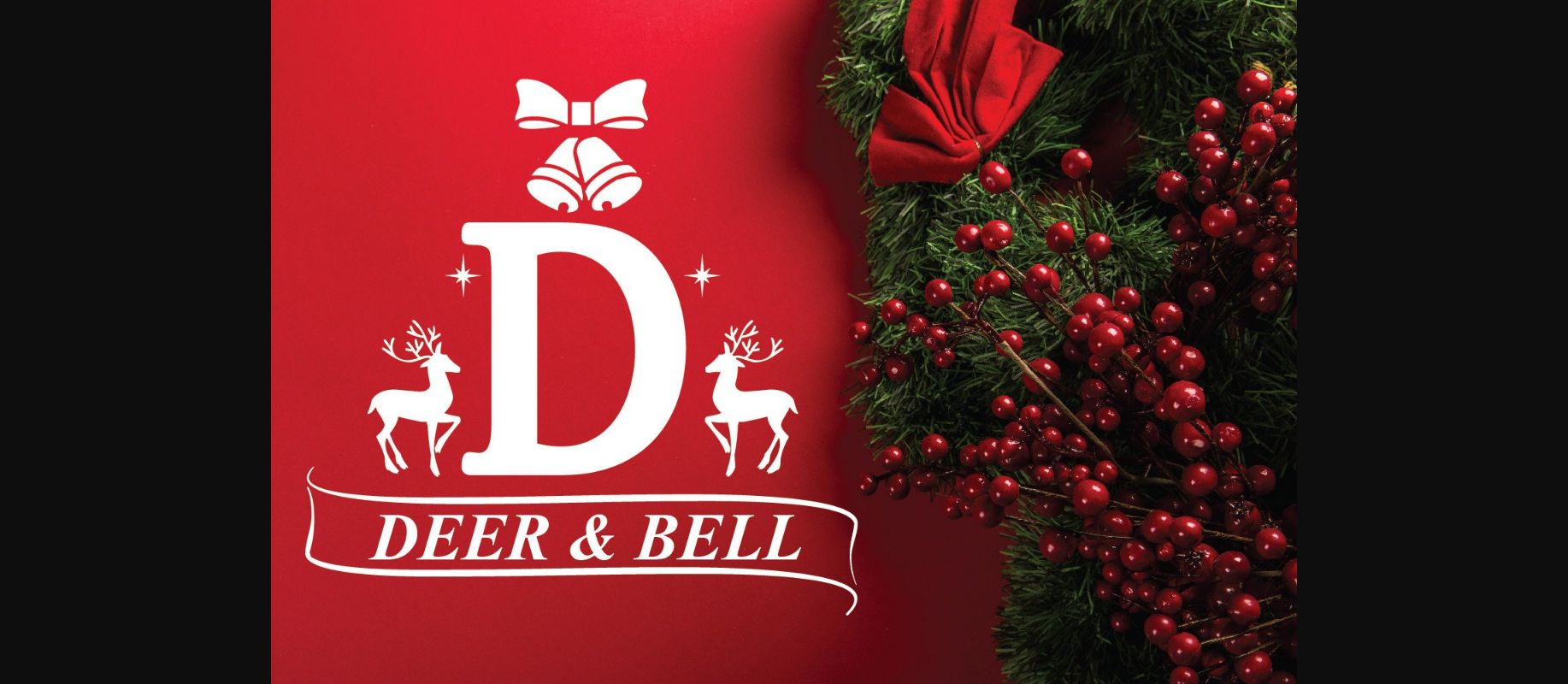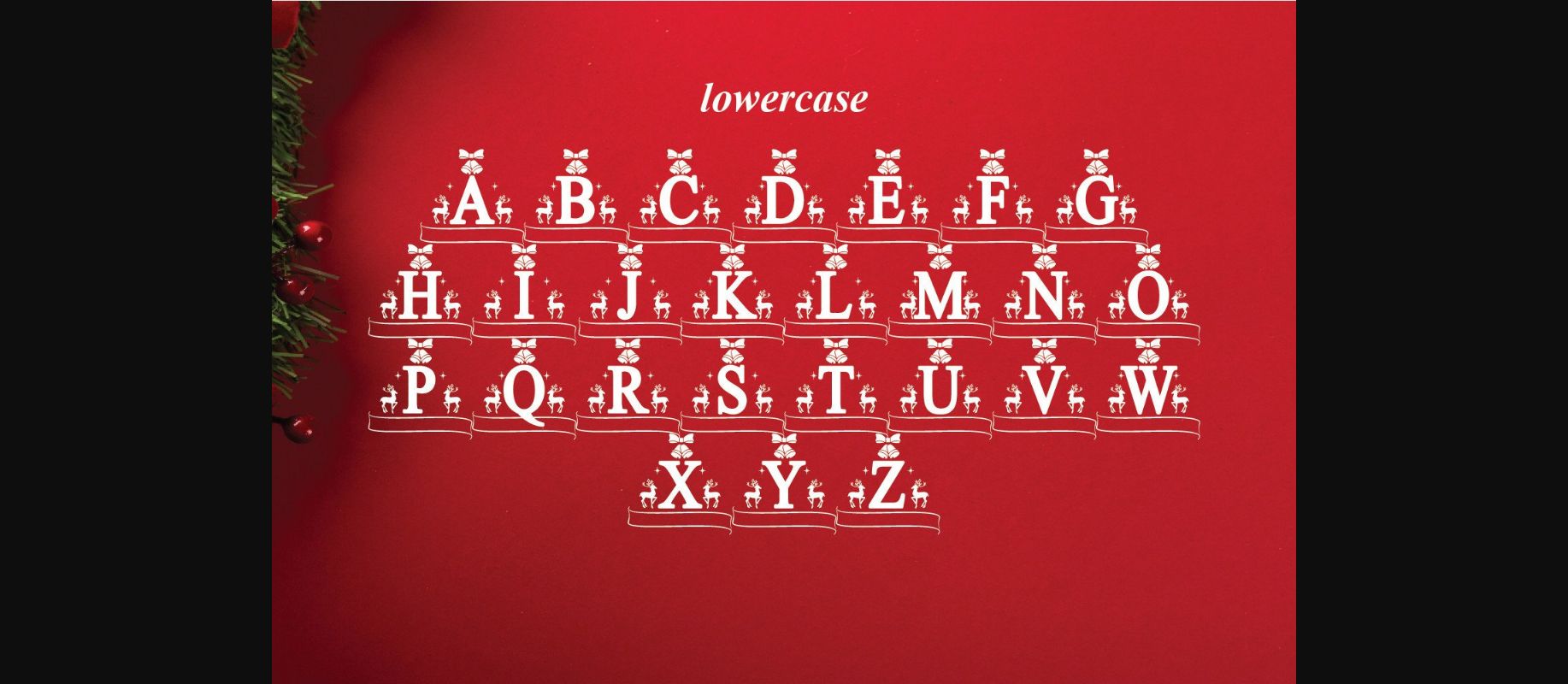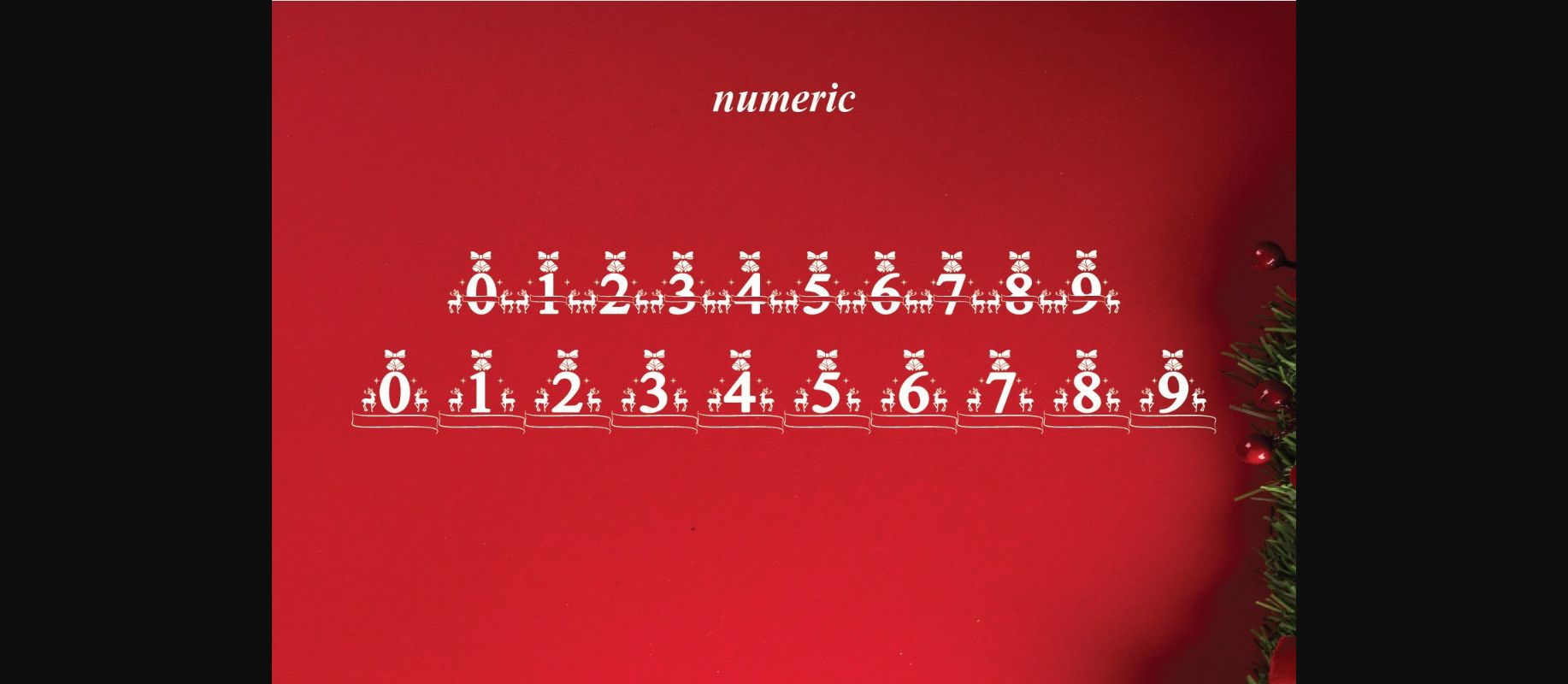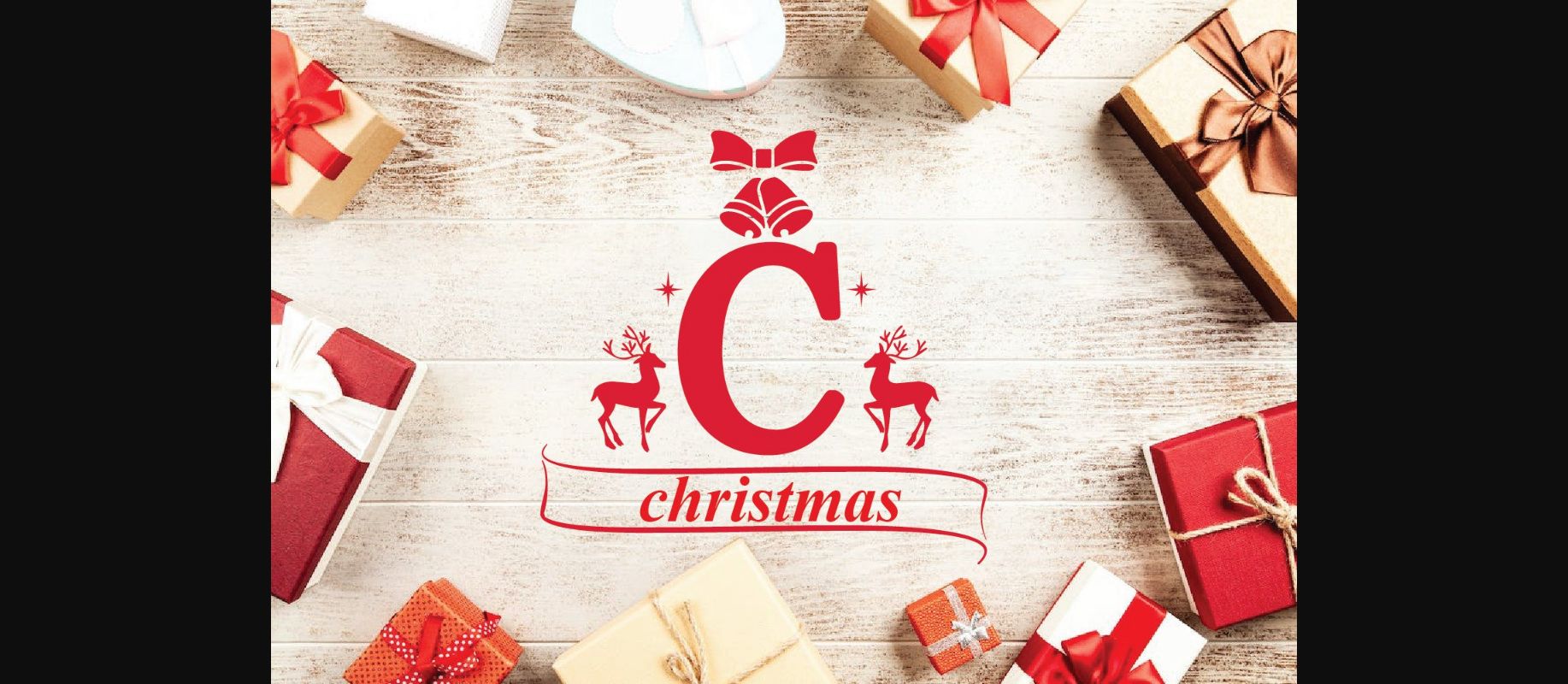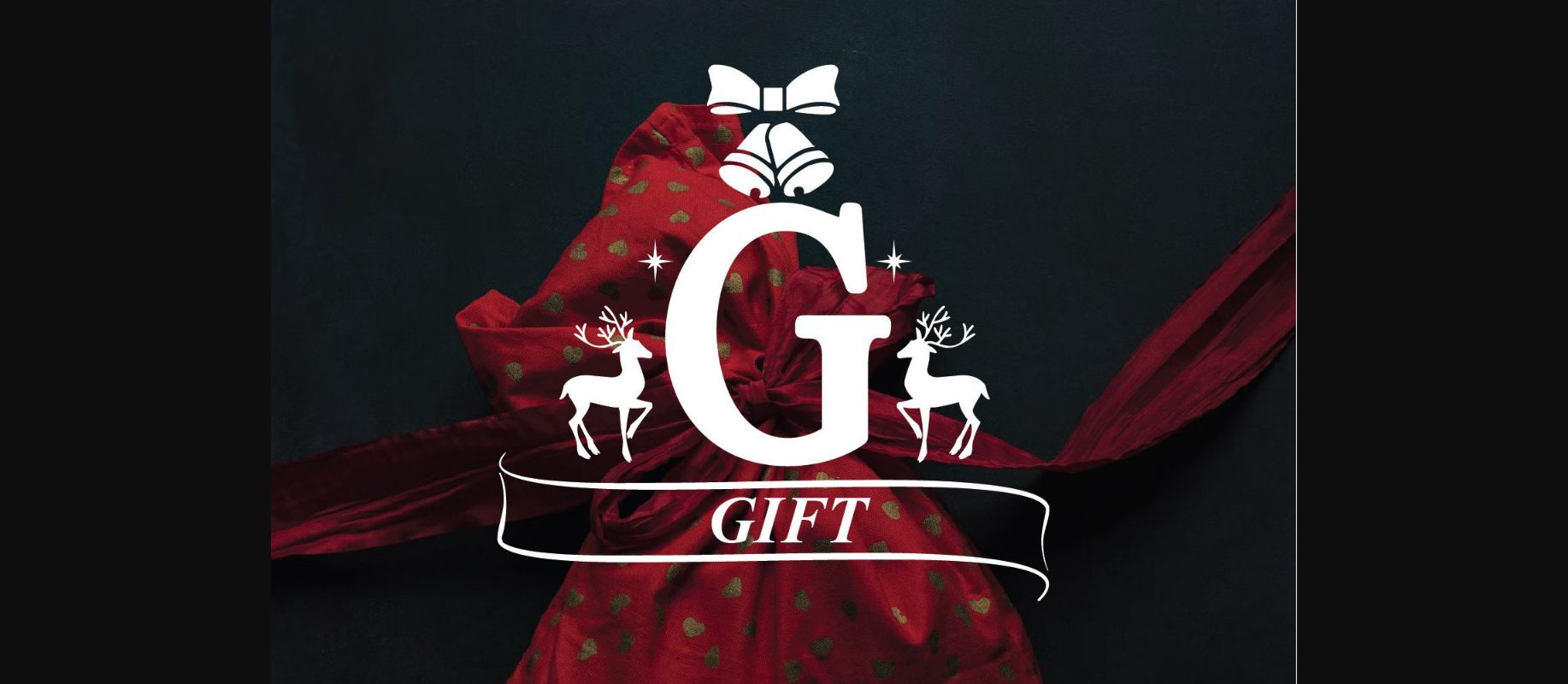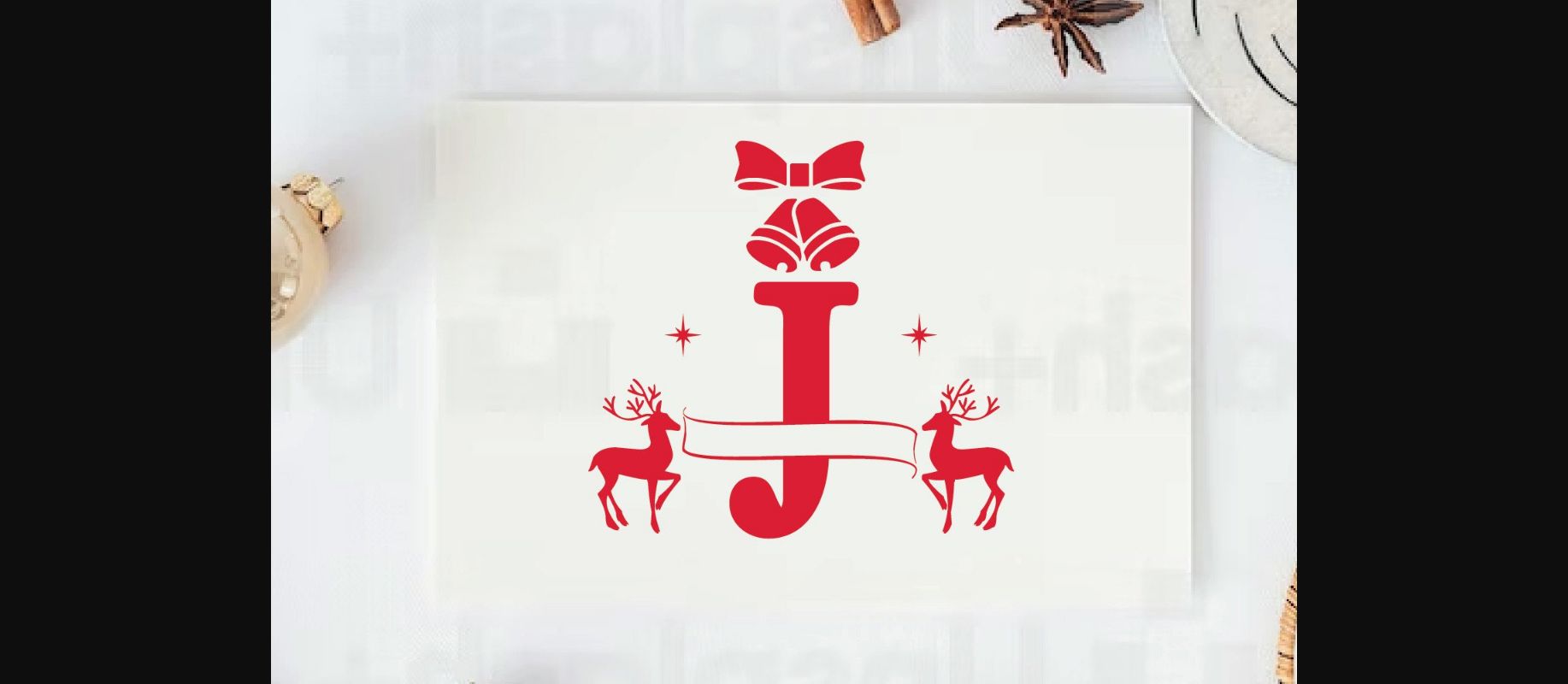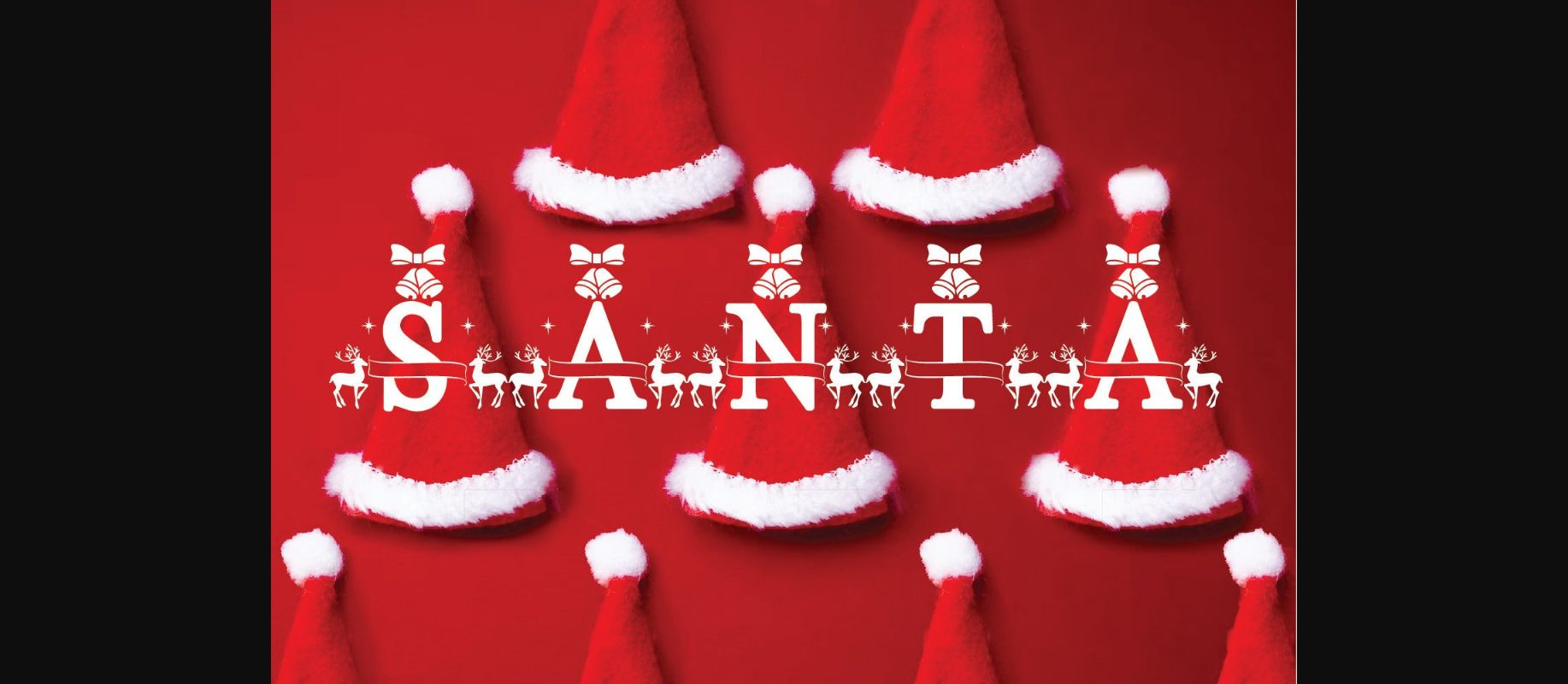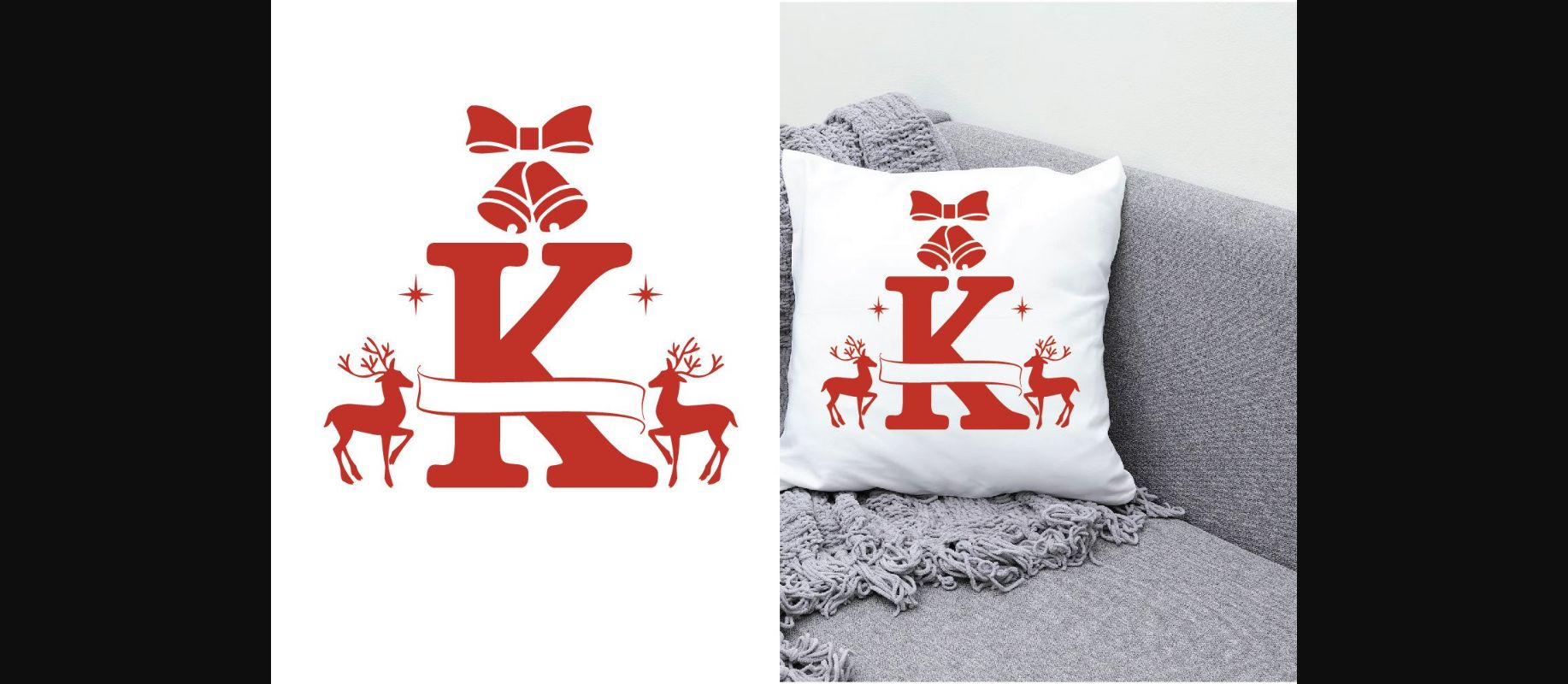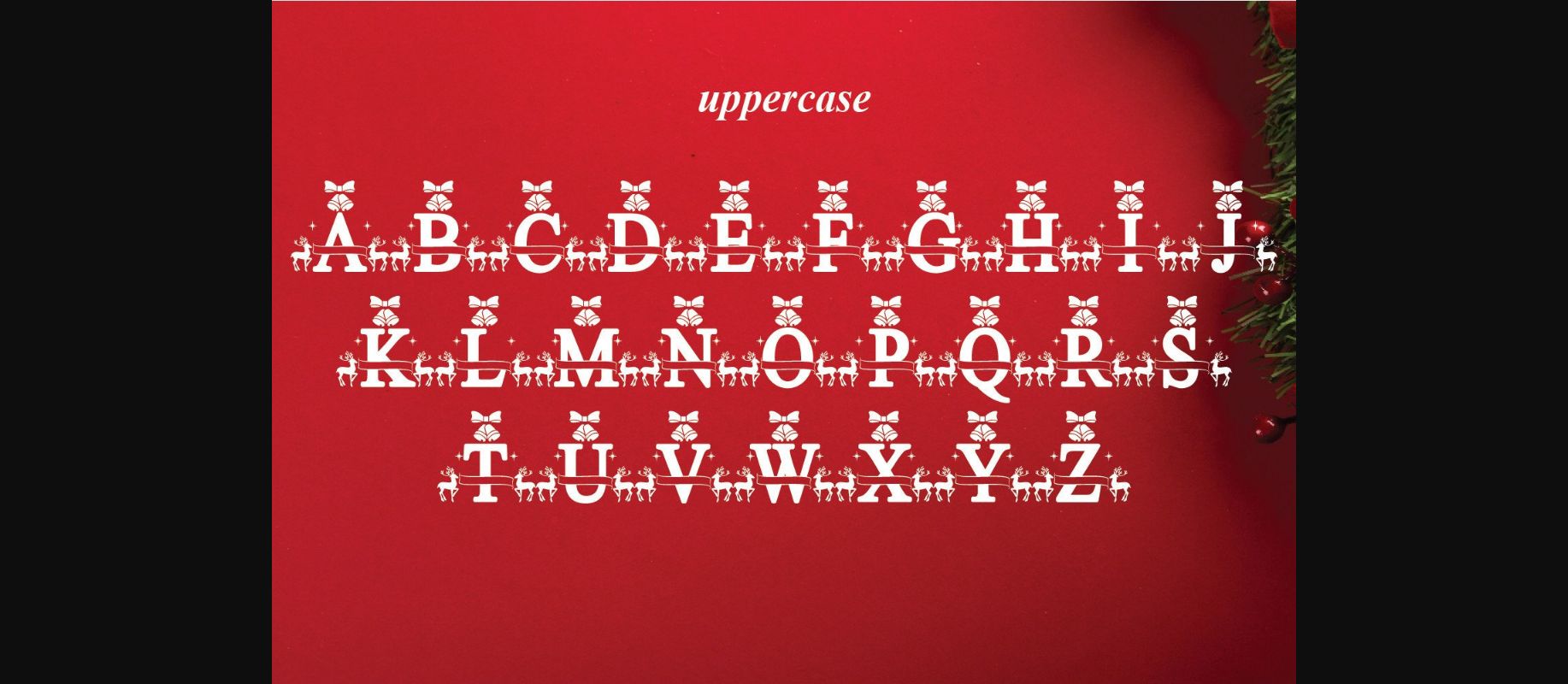
Deer Bell is a cute Christmas decorative font with a festive look. This monogram font is perfect for Christmas designs, shirts, crafts, farmhouse decor, craft projects, and more.